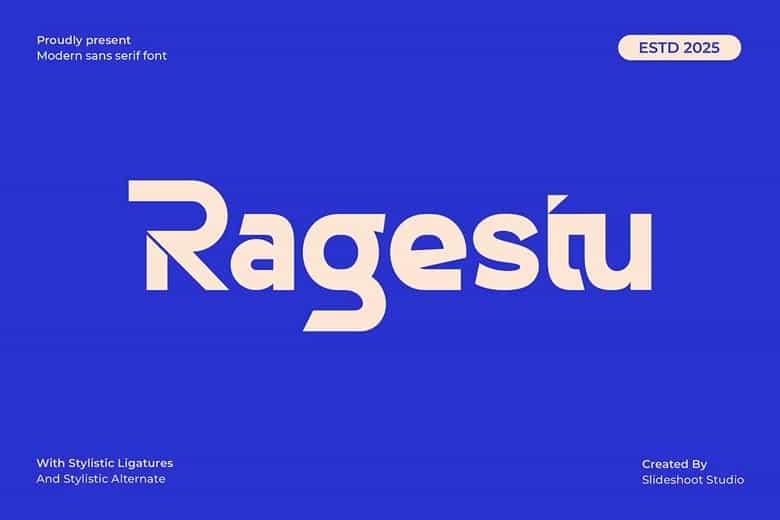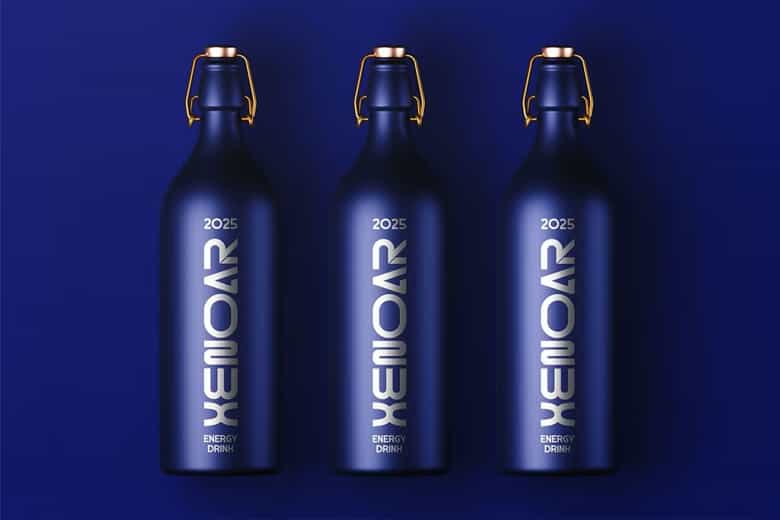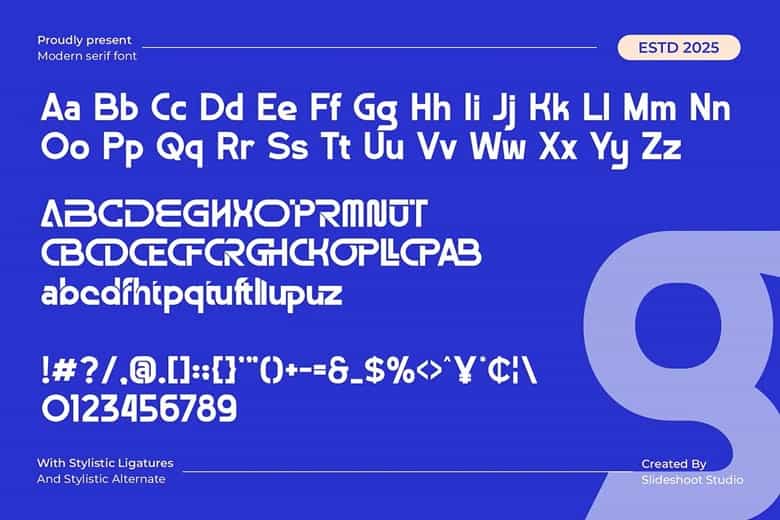
Discover Ragestu Font, part of the Sans Serif Display collection—a versatile and unique font perfect for adding a personal touch to your projects. Download it for free and enjoy crafting designs with style, from invitations to social media posts. This font is available exclusively for personal use, giving you the freedom to create without limits. Unlock your creativity with Ragestu Font today!
Ragestu is a modern sans serif font with stylistic ligatures and stylistic alternate. It will be very useful for branding, for logos, lettering logos, for typography, clothes, posters, magazines, packaging, poster, carry bags, t-shirts, books, covering, photography for specifically designed occasions and many other occasions.